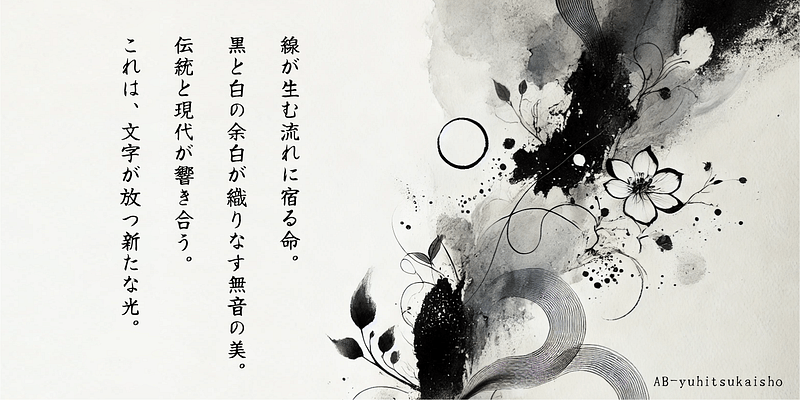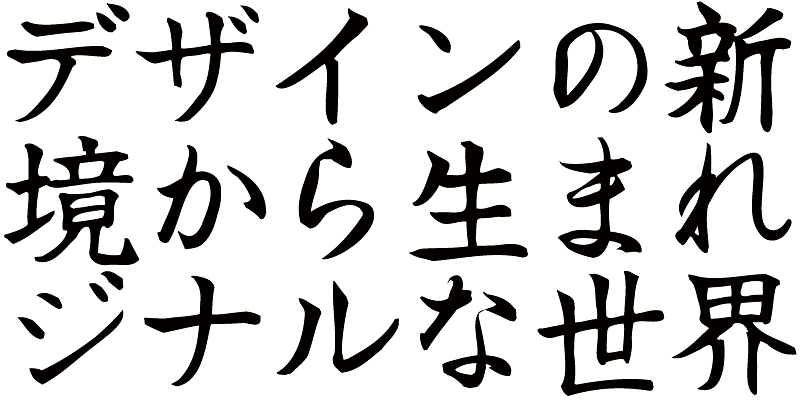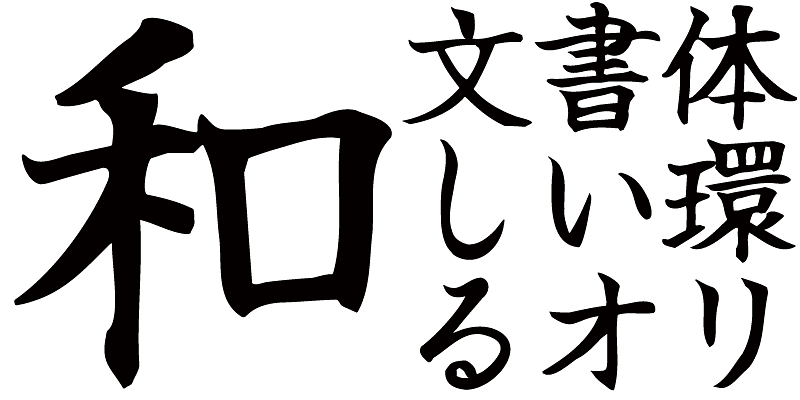
Yūhitsu Kaisho is a font that combines the elegance of brush calligraphy with the stability of regular script. Its flowing lines and dignified structure depict the beauty of both tradition and modernity. It creates a sophisticated impression in a wide range of contexts, from official documents to graphic design.
This series of fonts contains original hand-written Japanese typefaces based on pen calligraphy released in 2002. With a warm-hearted look, these fonts will draw the reader’s eye to key points of a design.